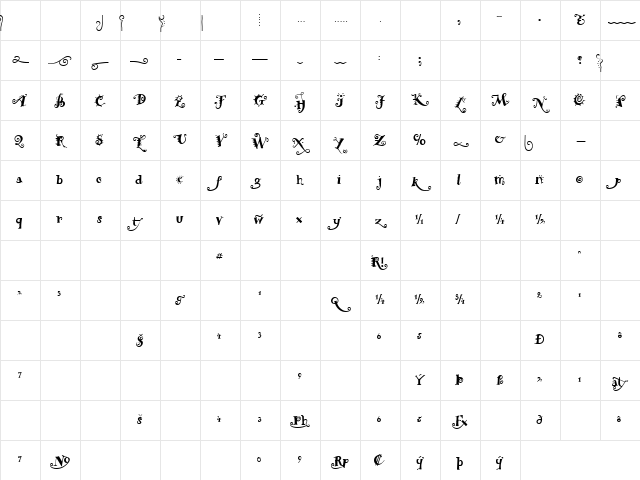
Complete ChiliPepperExtras Bold glyph index. Displaying only characters natively supported by ChiliPepperExtras Bold font.
ChiliPepperExtras is a composed and adaptable typeface that performs quietly and consistently across a wide range of design contexts. Its bold stroke weight gives it real presence on the page.